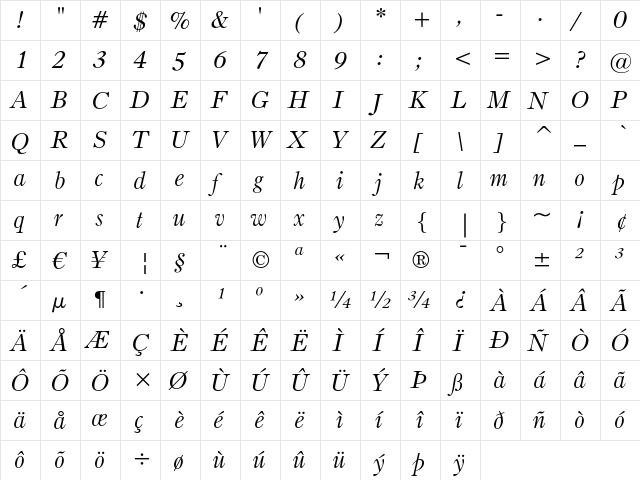
Bruce Old Style Italic
Design Context for Bruce Old Style Typeface
Bruce Old Style takes a measured approach to typography — its balanced proportions and neutral character make it a reliable workhorse for both digital and print work. The dynamic lean of this cut emphasises speed and emphasis in any layout.
Pro Tip: Use Bruce Old Style for emphasis, pull quotes, and subheadings where its slanted energy can add rhythm to the layout.